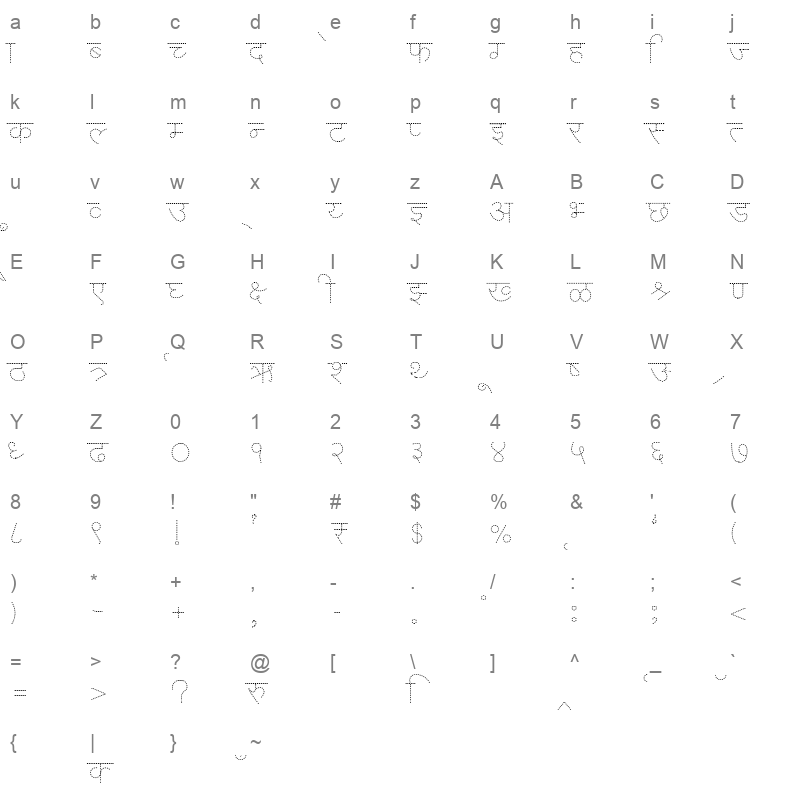
AMS Bindu Rekha 1 Regular marathi Font
The AMS Bindu Rekha 1 Regular font is a beautifully designed Regular typeface. It has been downloaded 266 times and rated 3 out of 5 by 3 users.
Preview of AMS Bindu Rekha 1 Regular